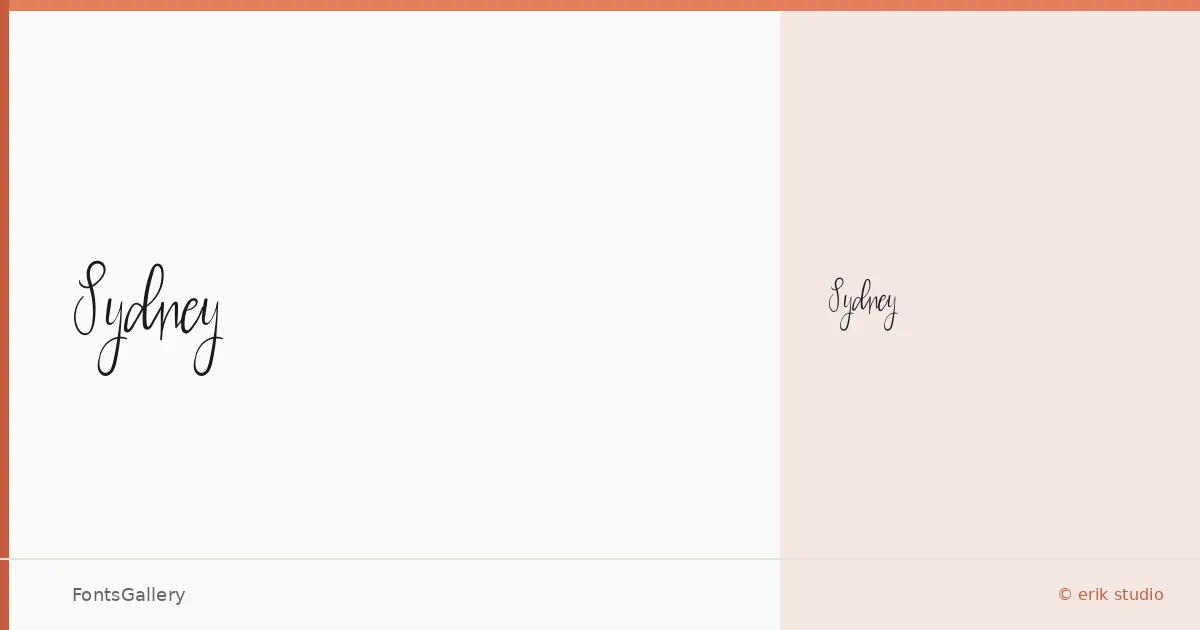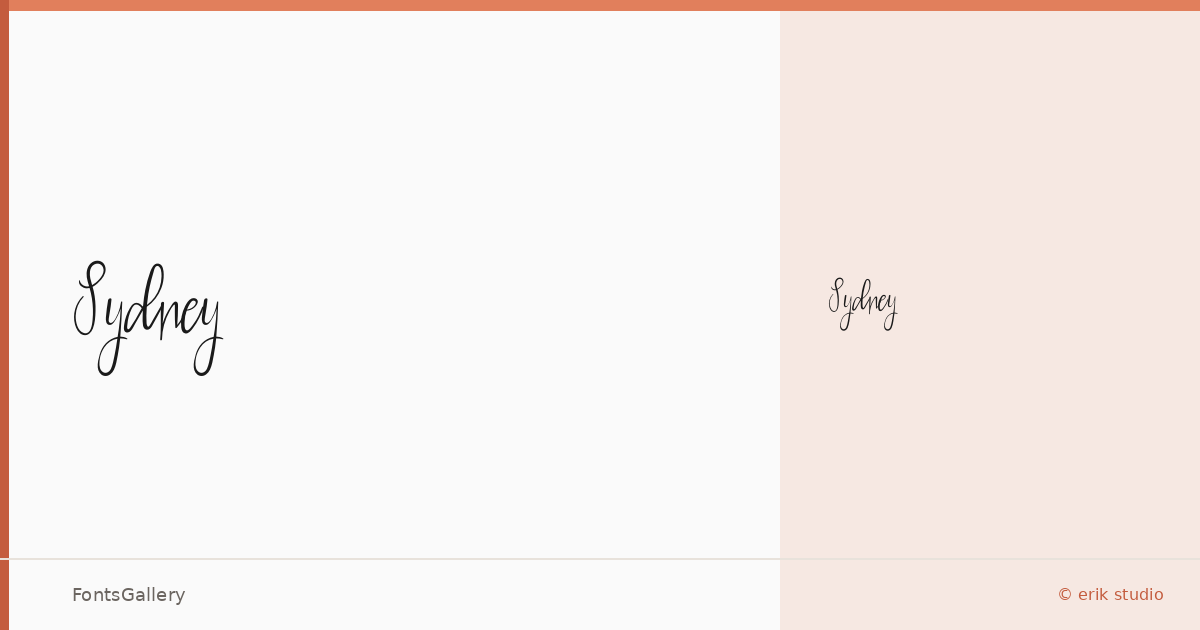
About Sydney Font
There is a particular ease to this script — the strokes rise and fall with the kind of unhurried confidence you expect from a hand that has written many formal envelopes. Designed by erik studio, it arrives as a single Regular weight in OTF format, refined and self-contained. The letterforms lean into classic calligraphic tradition without feeling stiff, carrying just enough romantic softness to feel current.
This is an elegant script that sits comfortably in the classic and romantic register — the sort of face that makes a logotype feel considered or a wedding suite feel genuinely hand-touched. The single Regular cut keeps things focused: every decision in the letterform construction serves expressiveness over utility. Partial Latin coverage means it handles standard Western text with care, though extended character needs should be checked against the glyph set before committing.
It earns its place most naturally on invitation cards, greeting cards, and wedding stationery, and translates well to branding and logo work where a signature-like quality is the goal. For contrast pairings, the neutrality of Helvetica or Alexandria gives the script room to breathe, while Canela brings a warmer editorial tone alongside it. Aresink and Bizantheum offer more characterful alternatives when the overall design calls for something less restrained in the supporting role.